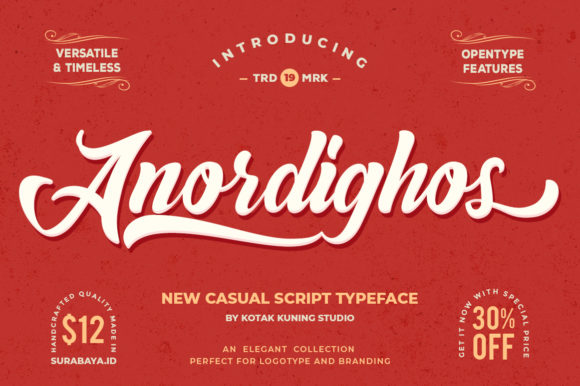
Behold, Anordighos, the calligraphy font that will make your designs sing! Unleash your creativity and let your words dance with this playful and casual display font. Its readability is unparalleled, ensuring that your message will be heard loud and clear.
Anordighos is the perfect choice for those seeking a touch of whimsy and charm. Its personal twist adds a unique flair, making it stand out from the crowd. Elevate your designs to new heights with Anordighos, the font that will make your projects shine.
Immerse yourself in the world of Anordighos. Picture your designs adorned with its enchanting characters, each letter flowing effortlessly into the next. Create eye-catching logos, captivating social media posts, and breathtaking invitations. Let Anordighos weave its magic into your work, leaving a lasting impression on your audience.
Don't settle for ordinary fonts. Embrace the extraordinary with Anordighos. Let your imagination soar and allow your designs to blossom into masterpieces. With Anordighos by your side, there are no limits to what you can achieve.
So why wait? Embark on a typographic adventure today and discover the wonders that await you with Anordighos! Dive into a world of creativity and let your designs flourish. Anordighos is more than just a font; it's an experience. Embrace it and watch your designs come alive!